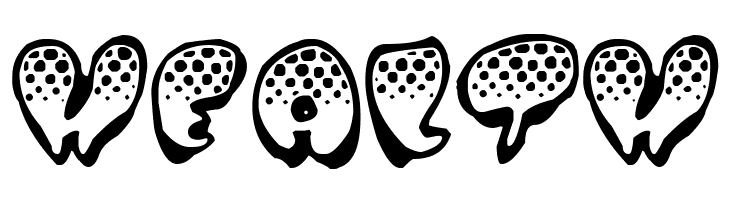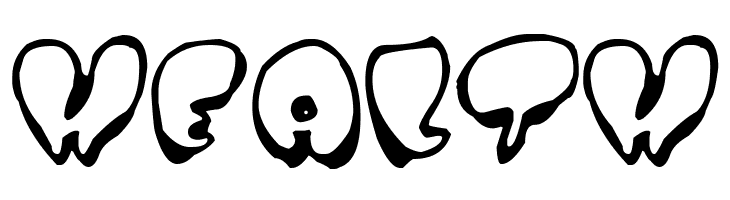
A playful, bold font with bubble-like, hand-drawn characters.
A playful, polka-dotted font with a cartoonish, decorative style.
A playful, dotted font with bold, rounded characters and a whimsical style.